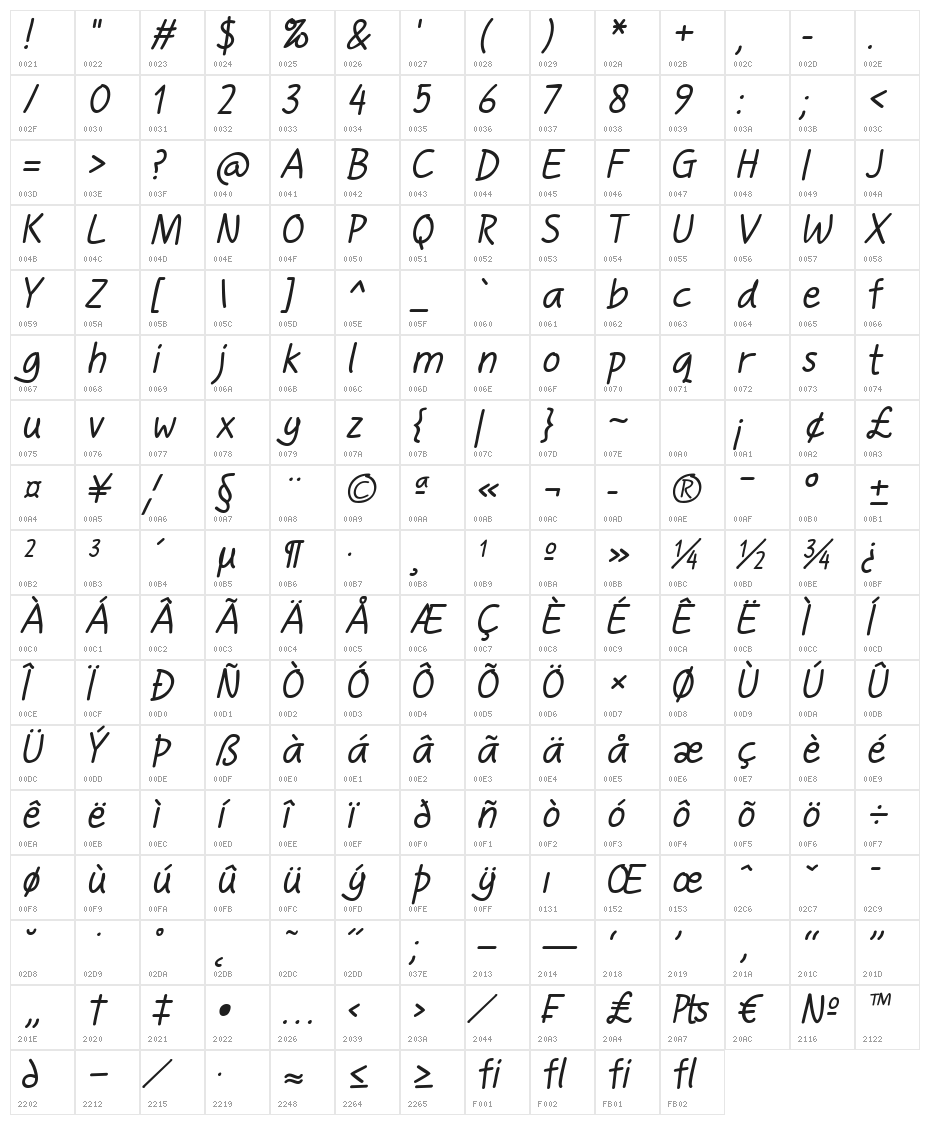
Handgley Italic Font
Handgley Italic Description
This font features a smooth, flowing script style with a handwritten appearance. The characters are slightly slanted, giving it an italicized look that adds a sense of motion and elegance. The strokes are consistent in width, providing a uniform appearance across all characters. The uppercase letters are distinct and bold, while the lowercase letters maintain a casual, approachable feel. Numbers and special characters are designed to match the overall style, ensuring cohesion throughout. This font is versatile and can be used to convey a personal touch in various design projects.
| Overall Style | Casual, Elegant |
| Proposed Projects | Ideal for invitations, greeting cards, personal branding, and creative projects requiring a personal touch. |